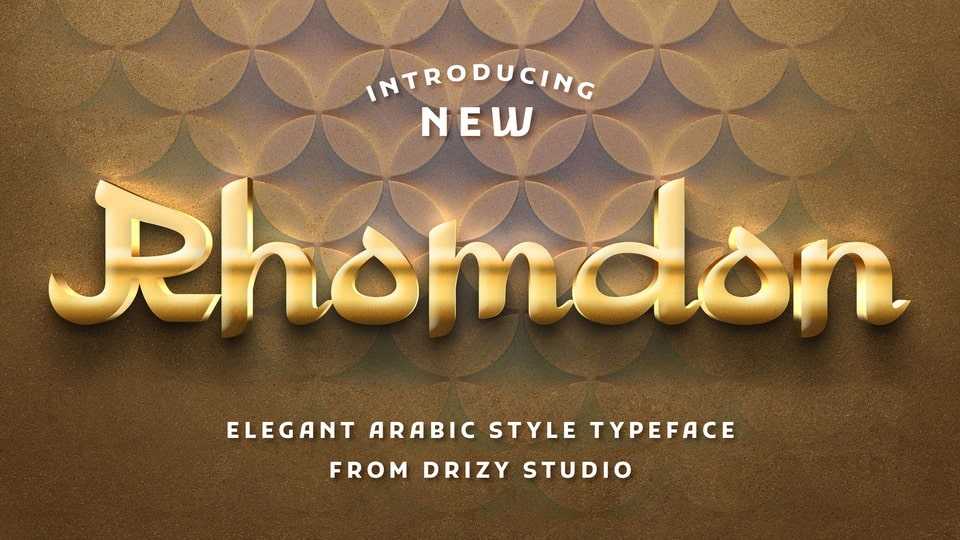
Download Rhomdon font, an elegant Arabic typeface with disconnected styling offering all the styles you need for classic or modern theme projects.
Designer: Drizy Studio